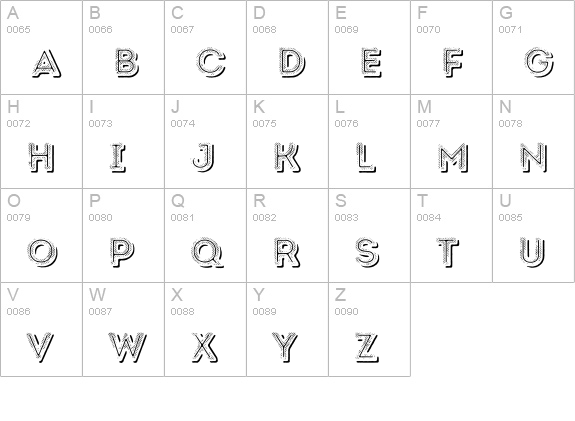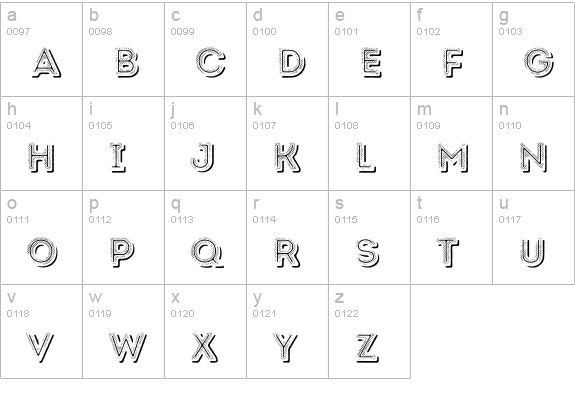
Intro Rust L Fill 2 Line Shade font is a striking and bold typeface that exudes a sense of modernity and sophistication. Its intricate design features two lines of text filled with a gradient shade effect, adding depth and dimension to any project it is used in. The font's unique style makes it perfect for headlines, posters, and branding materials that require a strong visual impact. Best of all, Intro Rust L Fill 2 Line Shade font is available for free download at FontsMarket.com. This means that you can easily access and use this eye-catching font for your personal and commercial projects without any cost. Don't miss out on the opportunity to enhance your designs with this dynamic and attention-grabbing typeface today!